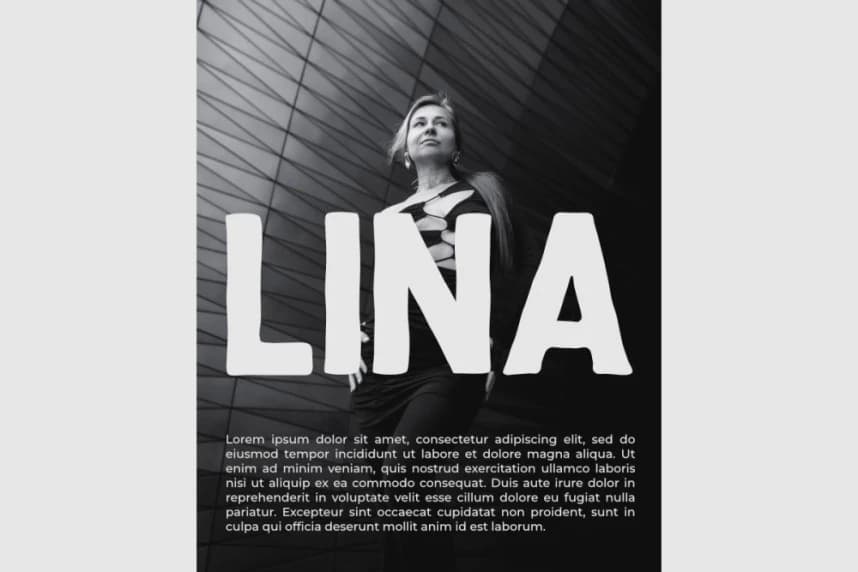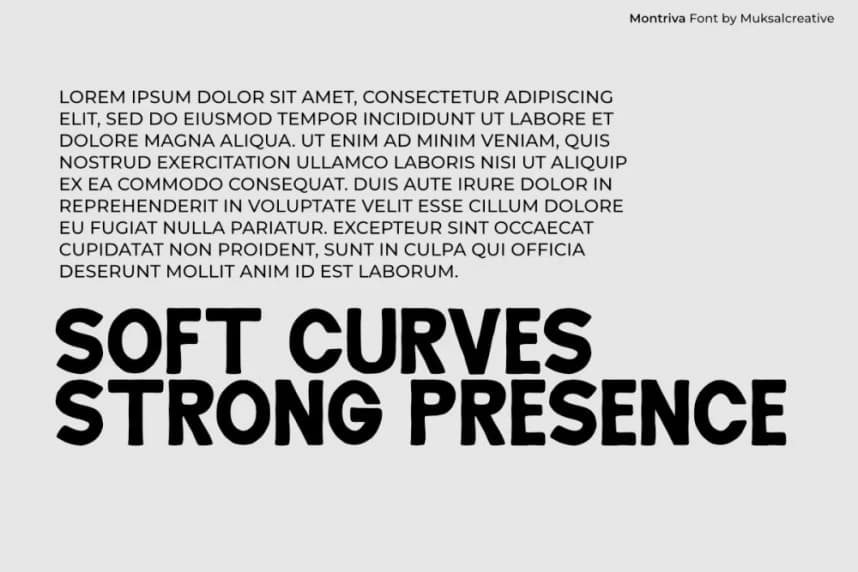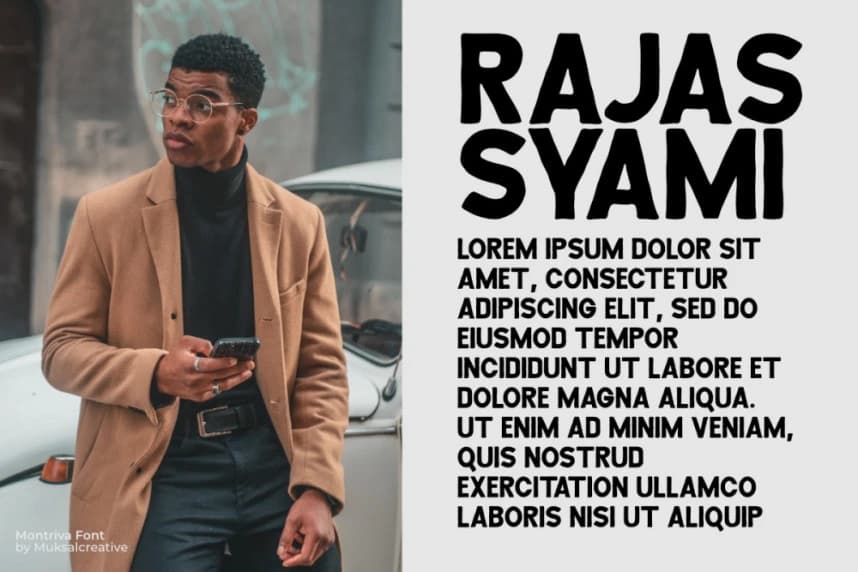
Montriva Font
Montriva Font is a bold modern typeface with a strong and clean character, designed to deliver a confident visual presence while remaining friendly and approachable. With its solid letterforms and balanced proportions, this font creates a professional yet dynamic impression.